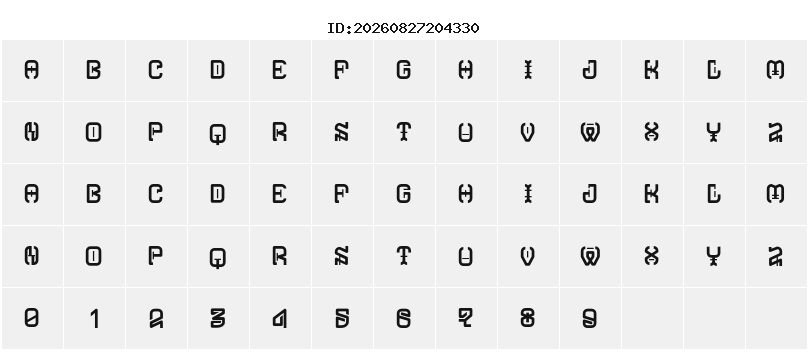
• Font Name: Typodika
• Designer: Mostafa El Abasiry
About Typodika.otf
Typodika.otf is a modern, elegant sans-serif font designed for ultimate readability and visual harmony. Perfect for branding, headlines, web design, and print materials.